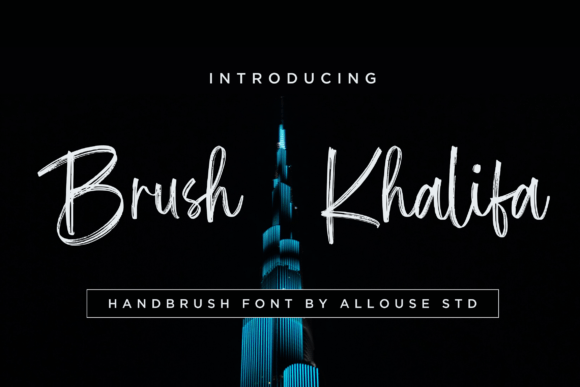
The Ultimate Creative Companion: Introducing Brush Khalifa Font
You know that moment when a blank canvas or a blank page stares back at you, waiting for your creative spark to ignite? It’s the moment when you need that one thing to bring your idea to life – and for many designers, that thing is the perfect font. Meet Brush Khalifa Font, a modern, trendy brush script font that’s about to become your new BFF in the world of design.
This incredible asset has the power to elevate any creation, making it perfect for a wide range of projects, from stylish blog posts to stunning social media graphics. With Brush Khalifa Font, you’ll be able to add a touch of sophistication and personality to your designs, setting you apart from the crowd and making your work truly unforgettable.
Brush Khalifa Font Key Features
- Font Family: Brush Khalifa
- Unique Characteristics: Hand-drawn brush script style, with a mix of elegant and casual feel, ideal for creative and artistic projects
Brush Khalifa Font Review
Overall, I think Brush Khalifa Font is a great addition to any designer’s toolkit. ✨ It’s perfect for creating a unique, handwritten feel in your designs. The font is highly customizable, with a wide range of styles and weights to choose from.
The Brush Khalifa Font is also incredibly versatile. You can use it for everything from logos and branding to posters and social media graphics. It’s a great choice for designers who want to add a personal touch to their work.
- Highly customizable with a wide range of styles and weights
- Perfect for creating a unique, handwritten feel
- Great for logos, branding, posters, and social media graphics
- Very versatile and easy to use
- ⚠️ Not ideal for body text or long blocks of text, as it can be difficult to read
- ⚠️ May not be suitable for formal or professional designs, as it has a more casual, handwritten feel
In terms of overall impression, I would say that Brush Khalifa Font is a great choice for designers who want to add a personal touch to their work. While it may not be suitable for every project, it’s a versatile and highly customizable font that can add a unique feel to your designs.
Tips for Getting the Most Out of Brush Khalifa Font
For best results, use Brush Khalifa Font in conjunction with bold or italic styles to create a striking visual effect. You can also experiment with different font sizes and colors to create a unique look.
Brush Khalifa Font is ideal for creating eye-catching headings, titles, and logos. It’s also
Alternatives to Brush Khalifa Font
Great Vibes is a modern, elegant script font that is ideal for creating a sophisticated and luxurious feel. It is perfect for use in branding, advertising, and editorial design. Great Vibes has a more refined and polished look compared to Brush Khalifa Font, making it suitable for high-end designs.
Carolyna Pro is a beautiful, high-end script font that is ideal for use in luxury branding, packaging, and advertising. It has a more elegant and refined look compared to Brush Khalifa Font, making it perfect for high-end designs that require sophistication and glamour.
Carolyna Pro’s more refined look compared to Brush Khalifa Font makes it more suitable for high-end designs, while Brush Khalifa Font is more suitable for casual designs and branding.
Playfair Display is an elegant, luxurious script font that is ideal for use in high-end branding, advertising, and editorial design. It has a more refined and sophisticated look compared to Brush Khalifa Font, making it perfect for creating a sense of luxury and glamour. However, Playfair Display is more formal and less playful compared to Brush Khalifa Font, making it more suitable for formal designs.